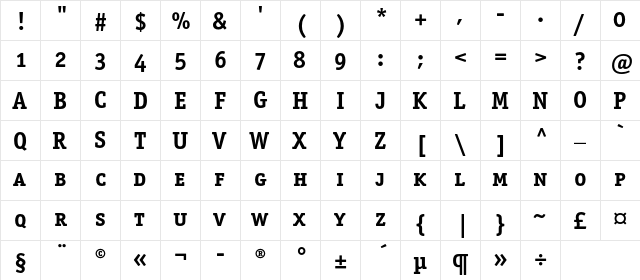
OfficinaSerifBoldSCC Regular
Design Context for OfficinaSerifBoldSCC Typeface
OfficinaSerifBoldSCC brings classic typographic sensibility to the table — its serifs and measured letterforms reflect centuries of print heritage. Its bold stroke weight gives it real presence on the page.
Pro Tip: Use OfficinaSerifBoldSCC for editorial body copy and considered headline work. Pair with a neutral sans for UI elements or captions to create a classic hierarchy.